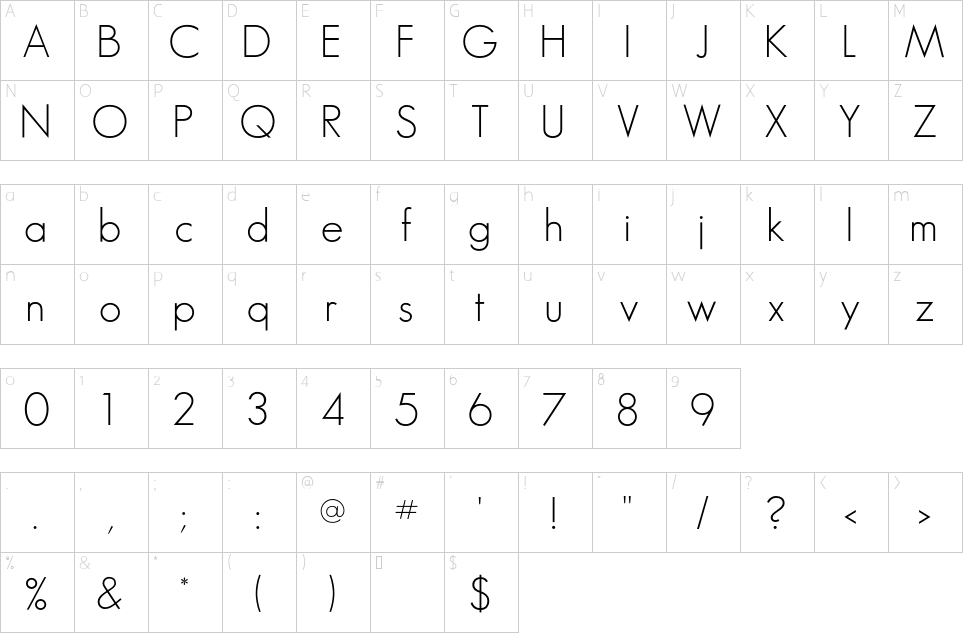
Sans Serif Tattoo Fonts
Click to find the best 988 free fonts in the tattoo style. This font is all about. 1001 free fonts offers a huge selection of free tattoo fonts for windows and mac. Click to find the best 16 free fonts in the sans serif tattoo style. Looking for sans serif tattoo fonts?
Looking for sans serif tattoo fonts? Click to find the best 16 free fonts in the sans serif tattoo style. 1001 free fonts offers a huge selection of free tattoo fonts for windows and mac. Every font is free to download! Click to find the best 988 free fonts in the tattoo style.
As Minimalism Continues To Thrive In Design Trends, So Does The Popularity Of Minimalistic Sans Serif Fonts In Tattoos.